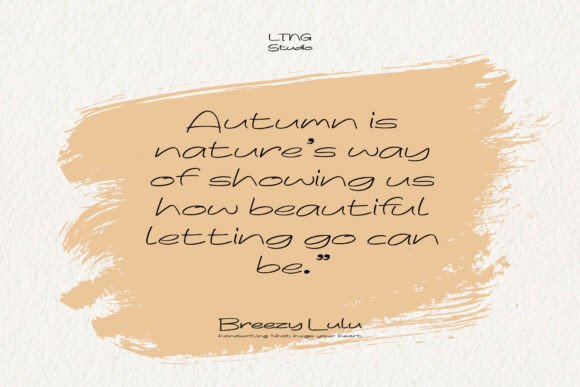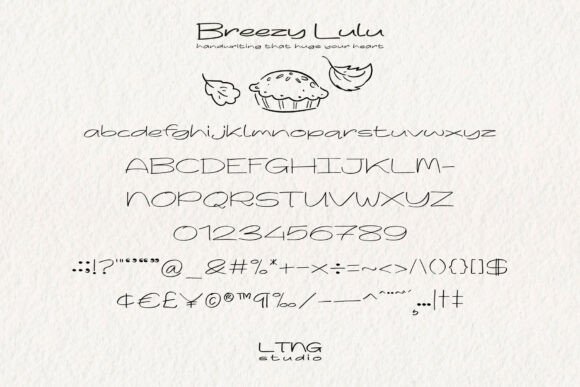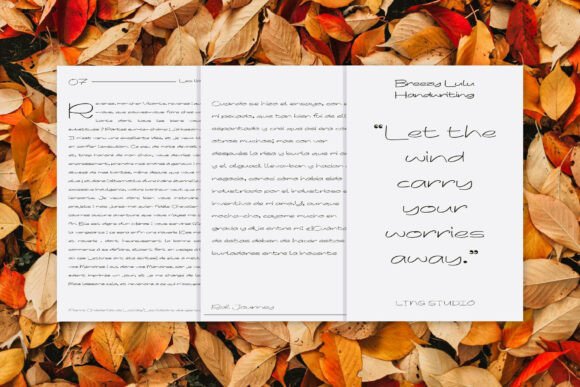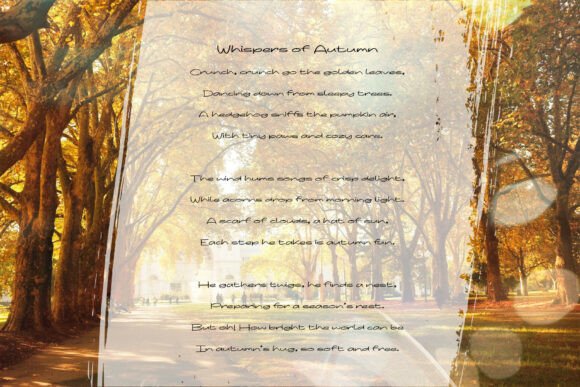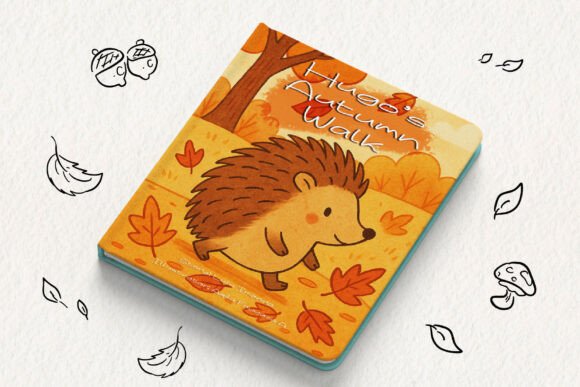
Discover the Delightful Charm of Breezy Lulu Font
As a designer, I’ve had my fair share of moments where finding the perfect font felt like searching for a needle in a haystack. I recall working on a children’s book project, pouring over font options, but nothing seemed quite right. The font had to be playful, yet readable; whimsical, yet not too chaotic. That’s when I stumbled upon Breezy Lulu, a handwritten font that effortlessly combines the feeling of playfulness and organic flow. In this article, I’ll share my experience with Breezy Lulu, its unique characteristics, and how to make the most of this beautiful font in your designs.
A Personal Review of Breezy Lulu
I’ve had the pleasure of working with Breezy Lulu on several projects, and here’s what I love about it:
- ✨ Soft curves and clean lines that give it a unique charm
- ✅ Highly readable, even at smaller font sizes
- 🌈 A perfect blend of playfulness and sophistication
- 💡 Ideal for a variety of design projects, from children’s literature to branding
While Breezy Lulu is an excellent font, it’s not without its quirks:
- 🤔 Some characters may appear a bit narrow, which can affect spacing
- ⚠️ Limited availability of certain OpenType features
The Story Behind Breezy Lulu
Breezy Lulu was designed with the intention of creating a font that’s both playful and readable. The designer aimed to craft a font that would bridge the gap between aesthetic appeal and functionality. Inspired by the beauty of handwritten scripts, Breezy Lulu was born with a unique charm that’s hard to resist.
| Font Name | Breezy Lulu Font |
| Author | LTNG |
| What type of projects is Breezy Lulu best suited for? | Breezy Lulu is ideal for children’s literature, education-based materials, coloring sheets, creative stickers, and clever branding. |
| Is Breezy Lulu available in different font styles? | Currently, Breezy Lulu is available in a single font style. However, the designer may release additional styles or variations in the future. |
In conclusion, Breezy Lulu is a delightful font that brings a touch of playfulness and whimsy to any design project. With its soft curves, clean lines, and unique charm, it’s perfect for designers, crafters, and creative hobbyists looking to add a human touch to their work. Whether you’re creating children’s literature, branding, or digital art, Breezy Lulu is sure to captivate and engage your audience.